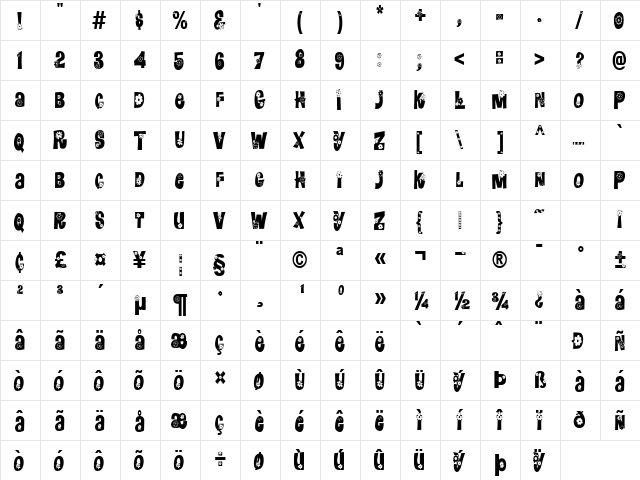
FlowerPowerCondensed Normal
Design Context for FlowerPowerCondensed Typeface
FlowerPowerCondensed has the bold swagger of sports branding: strong, assertive letterforms designed to dominate headlines and jerseys alike. Its narrow stance lets it pack a punch even in space-constrained designs.
A natural choice for gym brands, fantasy sports, jersey lettering, and action-driven headlines.
Pro Tip: Use FlowerPowerCondensed in all-caps headlines where its athletic energy can fully express itself. Pair with a solid, simple sans for supporting text.